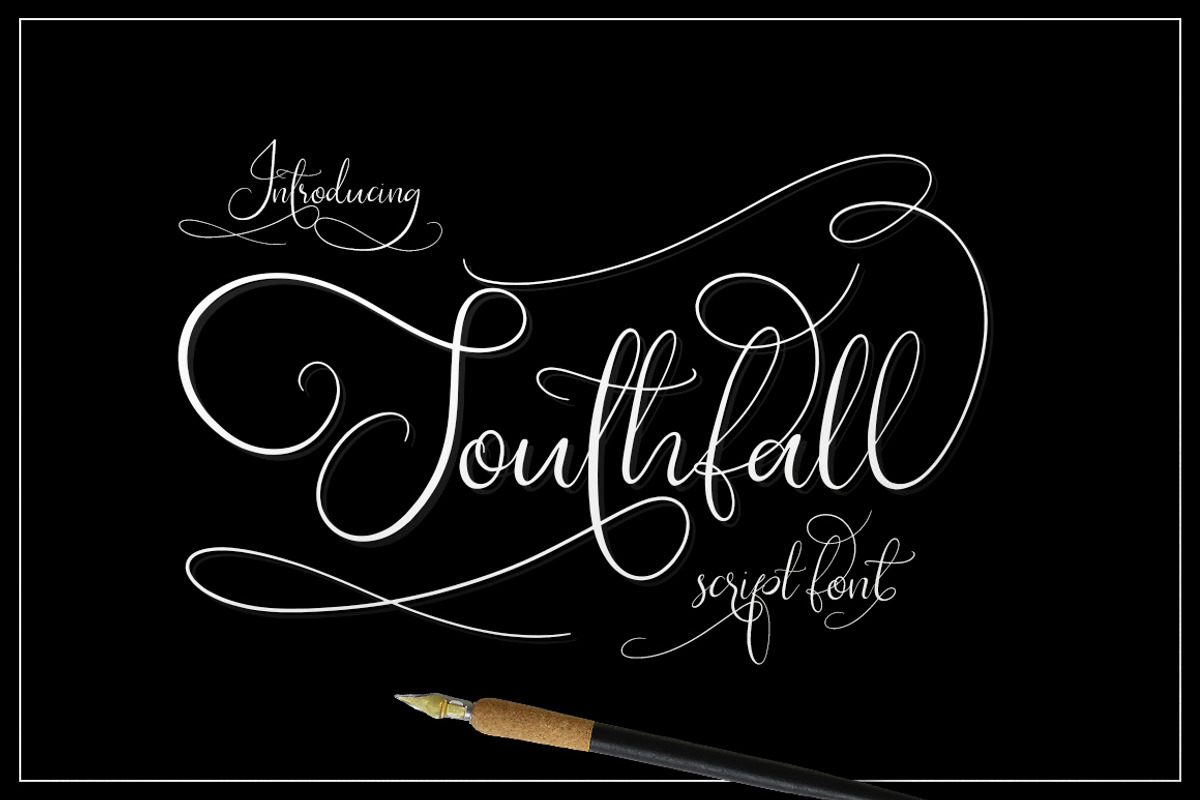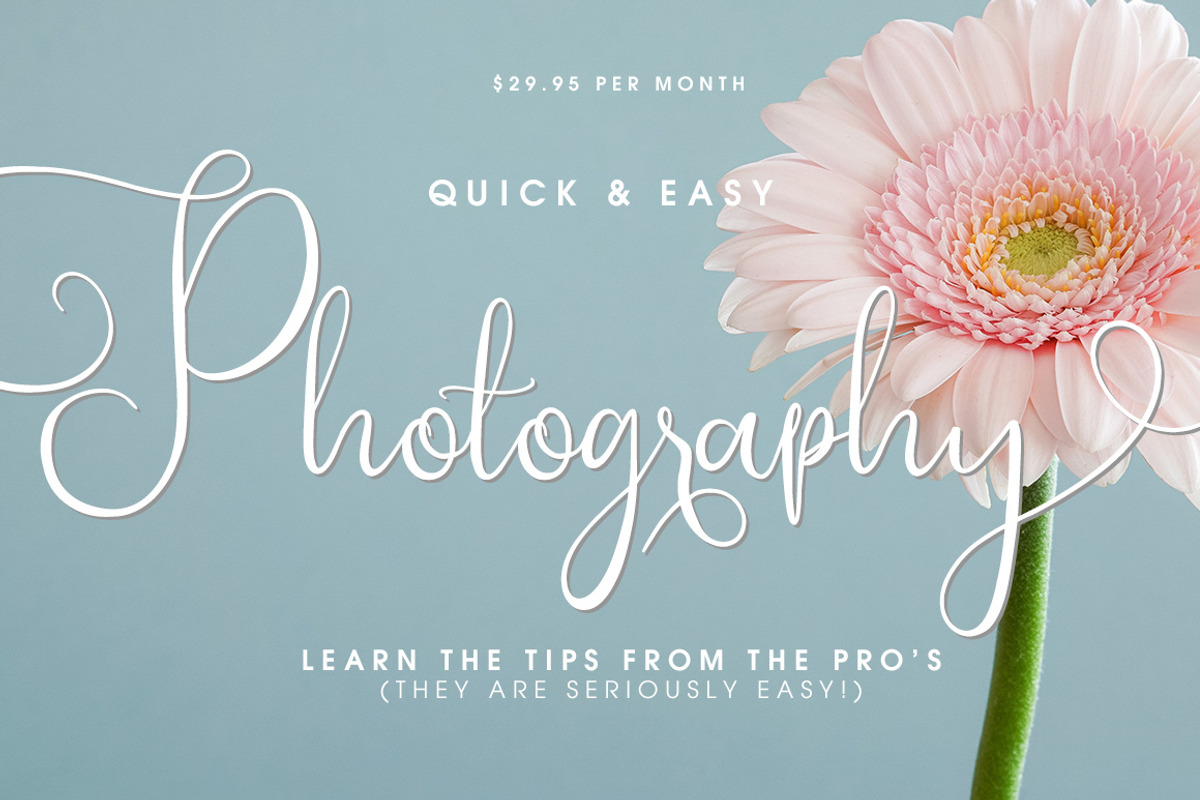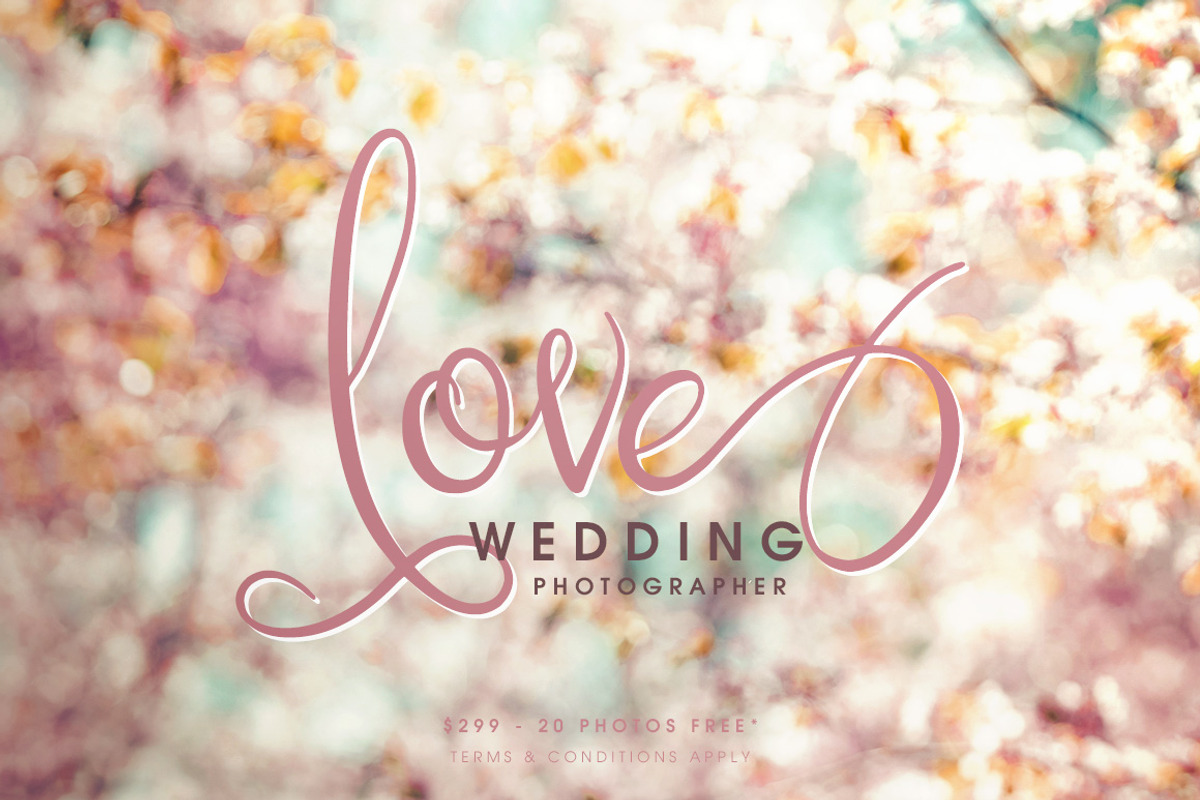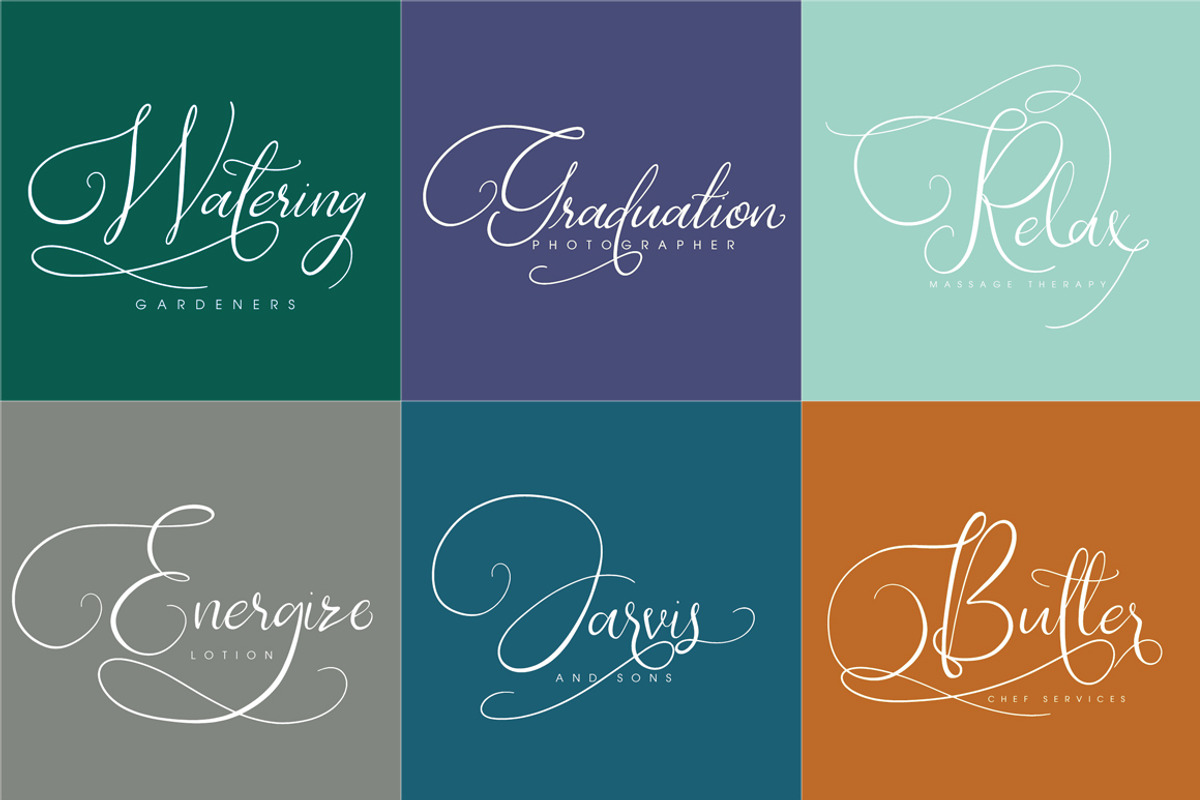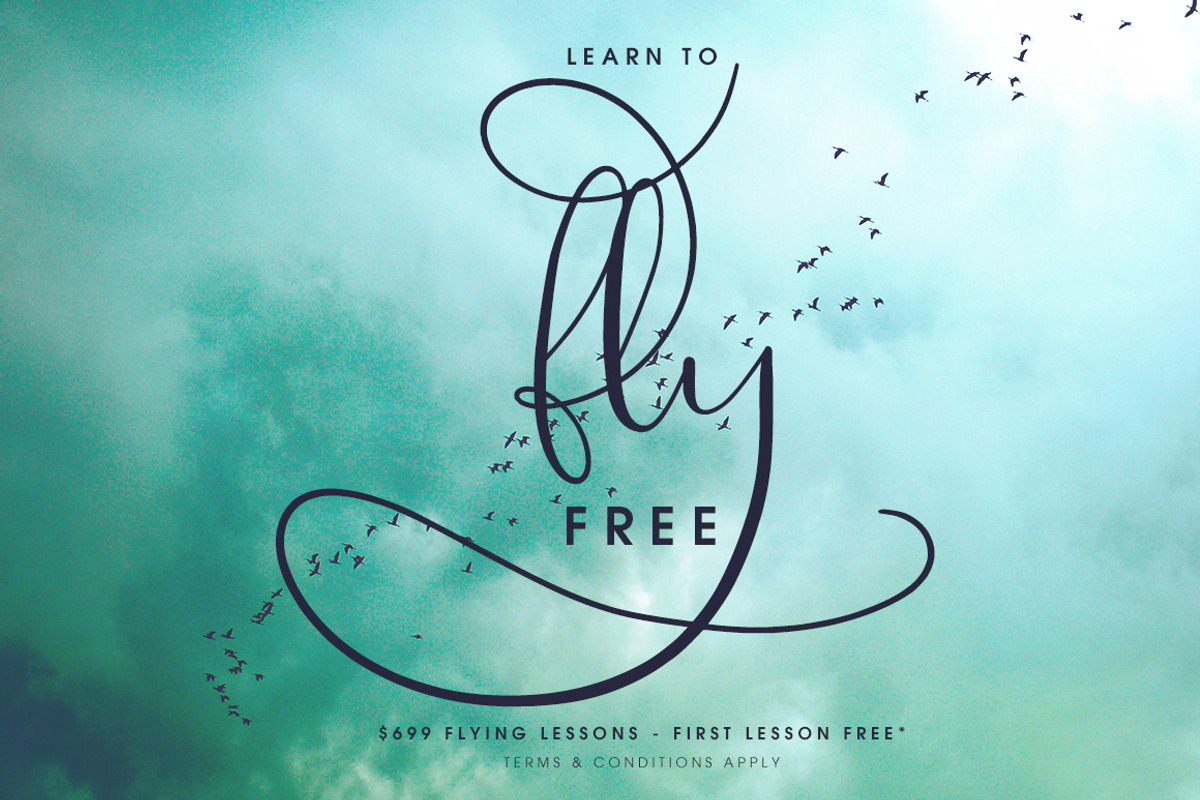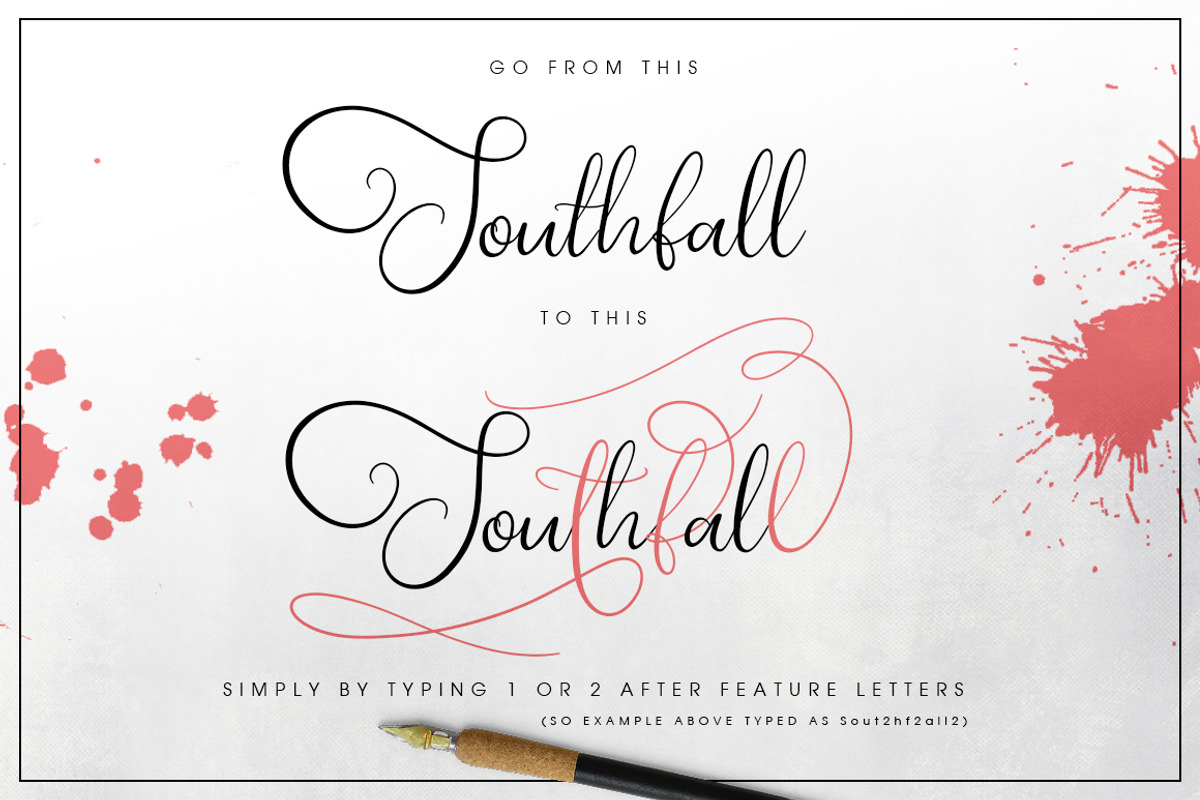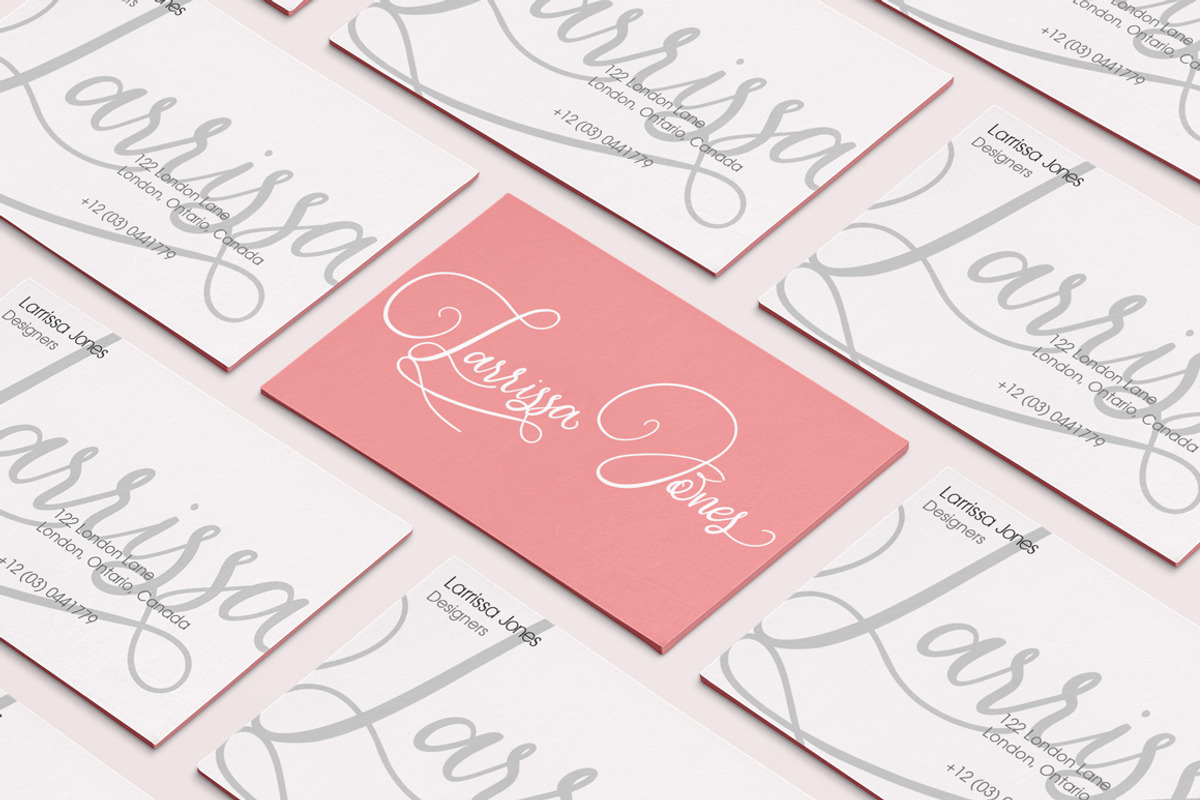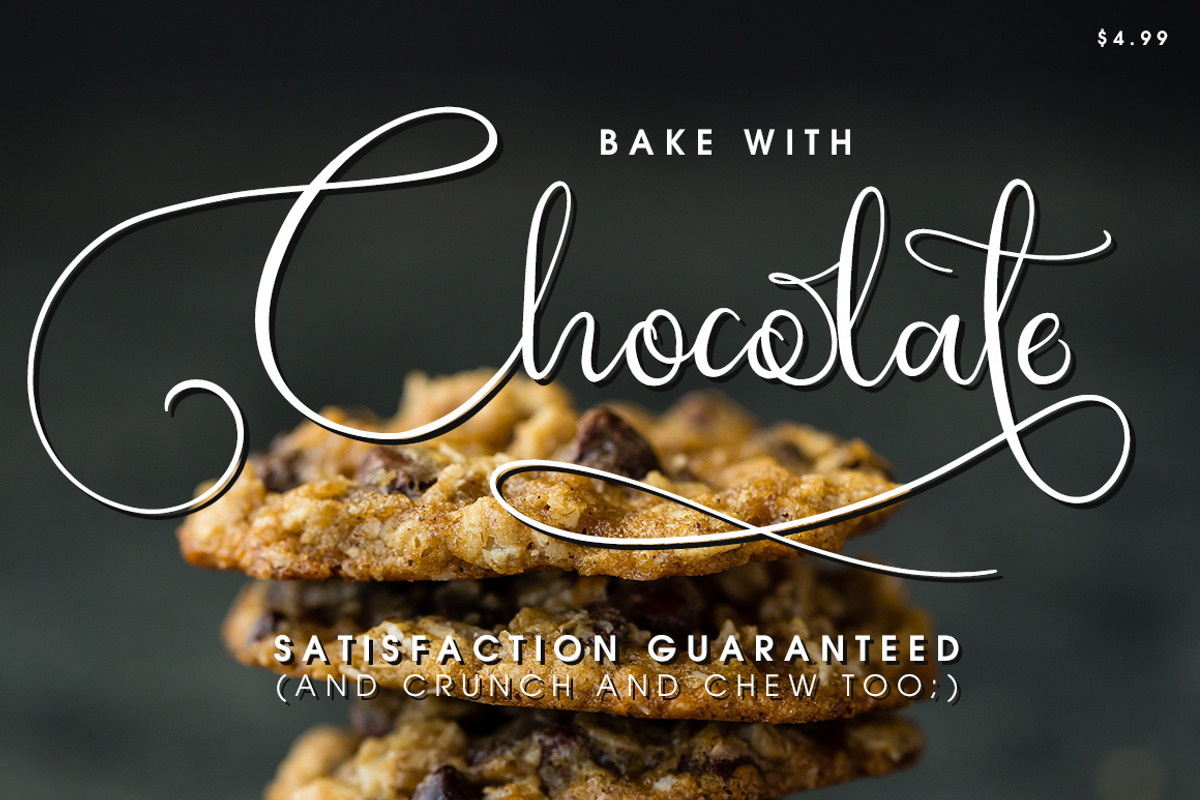
Southfall Script Font
Releasing the Brand New Southfall Script font!
This gorgeous new font has so much elegance, character, charm and grace. Loaded with alternates and ligatures, plus bold, light, ultra light, upright and slant versions, this font is incredibly adapted to so many design situations.
To access the alternate letters, simply type 1 or 2 after a letter. Try it out in the preview below!
You can also access the alternates from the Character Panel.